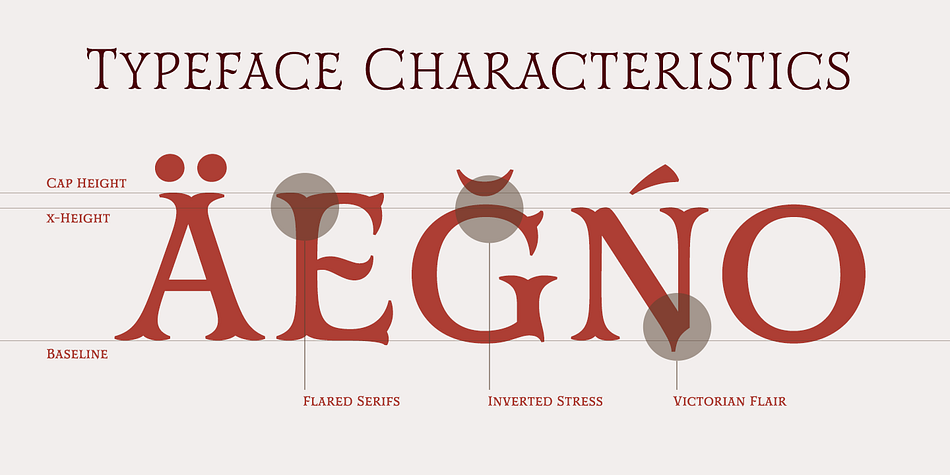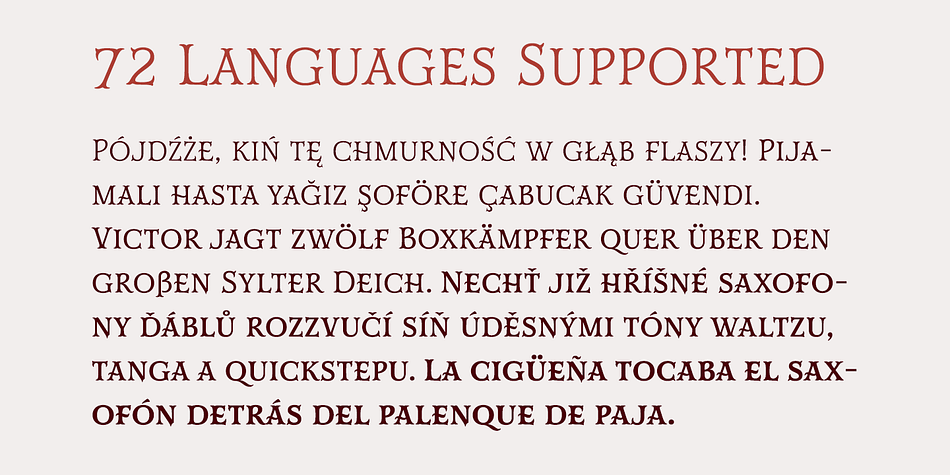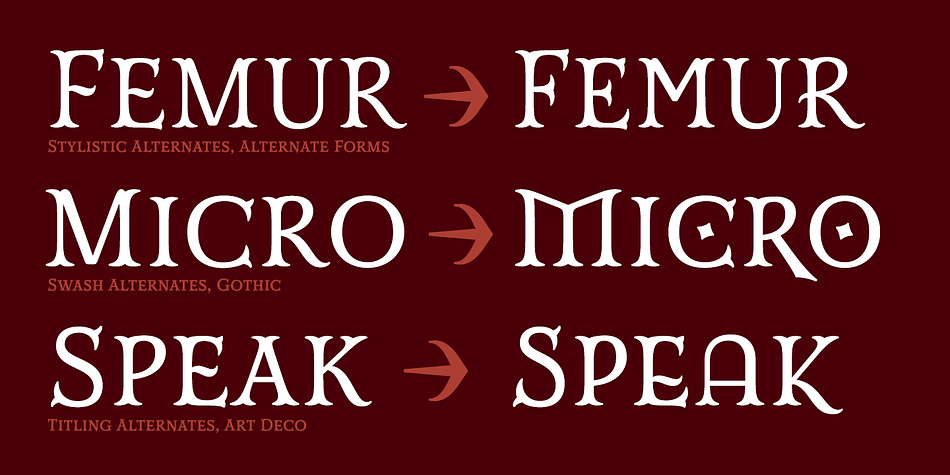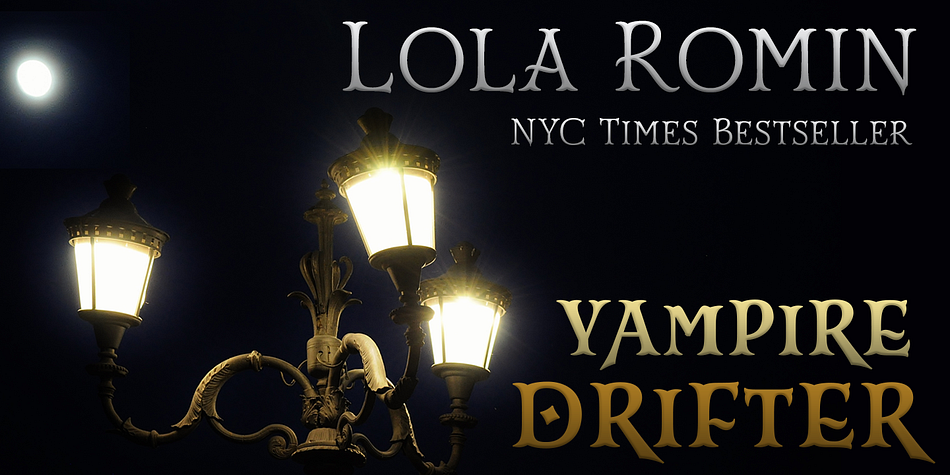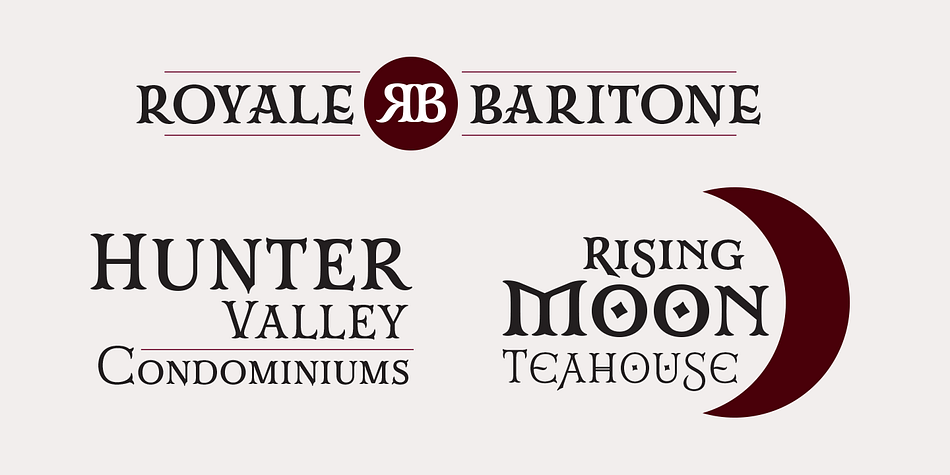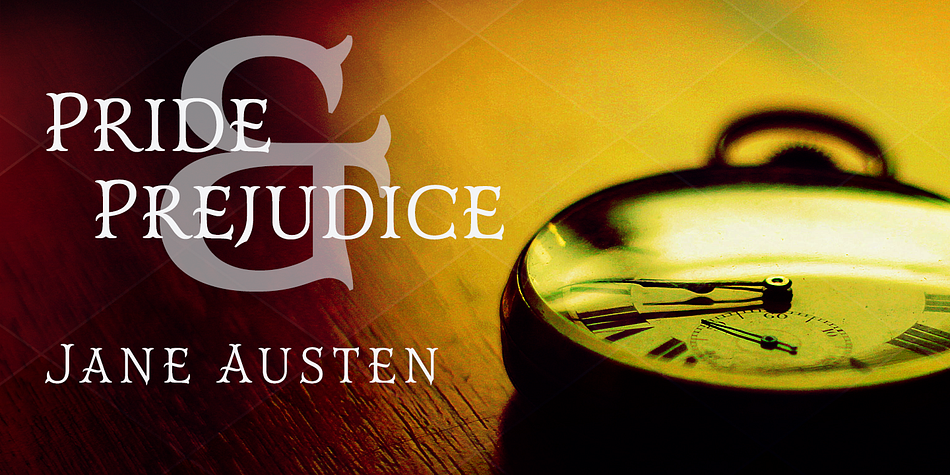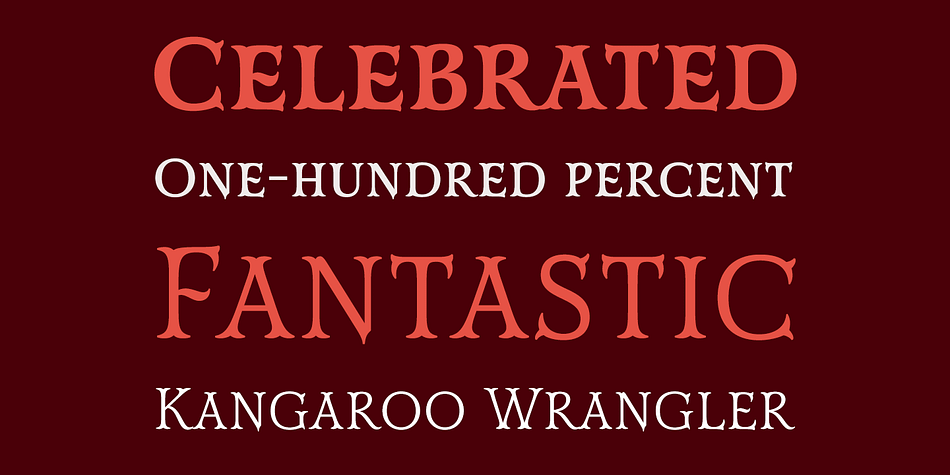
Mr Darcy is a display serif font family. This typeface has five styles and was published by Insigne Design.
Only occasionally are we graced with a font so pleasant and enjoyable to our company as the wonderfully amiable Mr. Darcy. Even the most casual study of the face conveys to the reader a character not refined overnight but through careful trial and concentrated effort. The gentlemanly elegance of this yet contemporary font so easily calls to mind such Victorian estates that one imagines in many a classic of Ms. Austin or Ms. Eyre.
The elegant and very graceful Mr. Darcy is sufficiently compete with its additional characters—to be stated more precisely, over 136 defining alternates. These optional features are carefully displayed within the supplied brochure.
A sight of stability and grace, Mr. Darcy is greatly enabled to lead your work as it dances airily in good humor across the page. One should not be so sorry to make himself more acquainted with this face and even to engage it in further matters of business in the future, thereby finding himself at so happy an end of satisfaction and success.